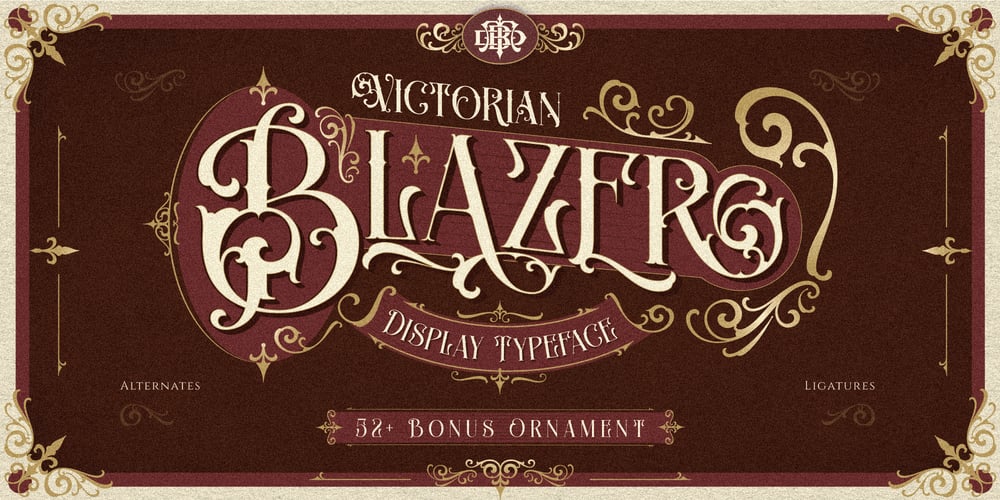
BTD Blazer Typeface Font Family was designed by Eric Kurniawan and published by Burntilldead. BTD Blazer Typeface contains 2 styles and family package options. Introducing Victorian stylist typeface, Blazer. Make your design looks vintage and classy with the uniqueness touch from the font. Easy way to bring 1800 era to your design project! This package font including free ornament to adding classical, vintage and victorian looks in your design. So effortlessly to make your design Victorian charm.Features: Blazer A-Z Numbers Punctuation Alternates (more than 10 alternate) Ligature Bonus:Blazer ornaments